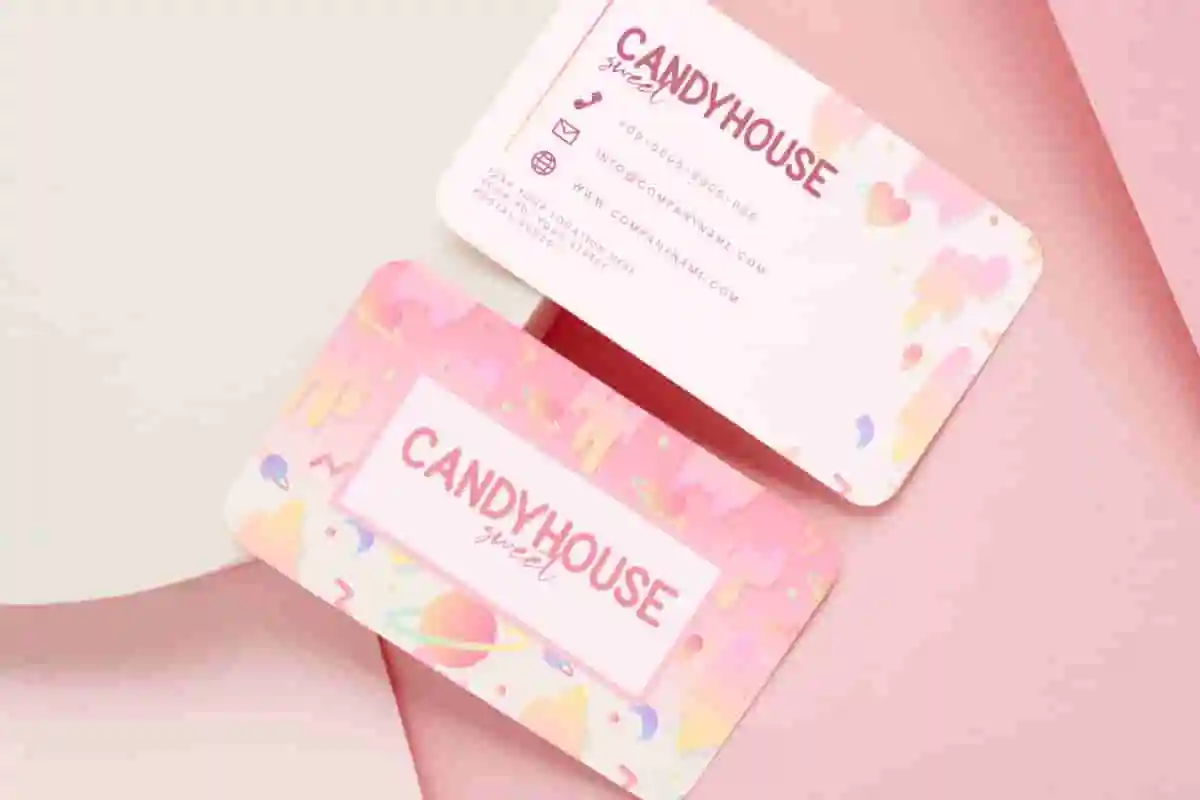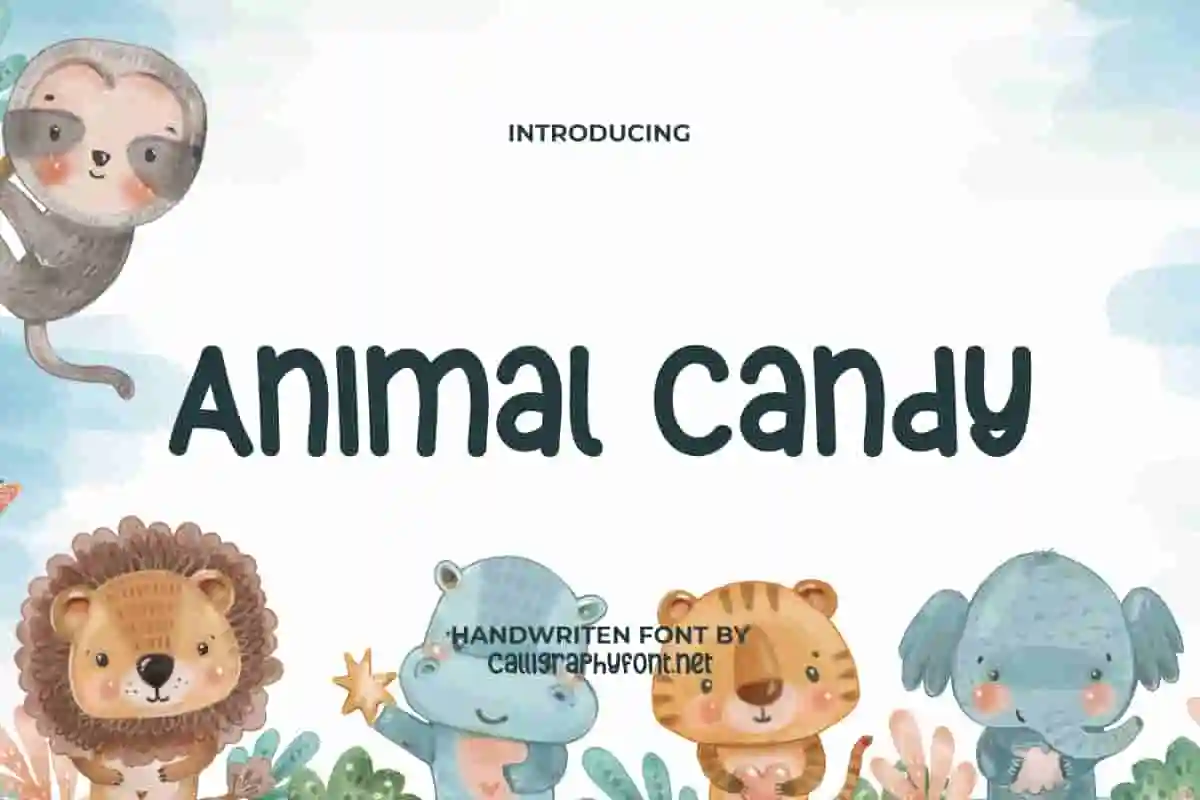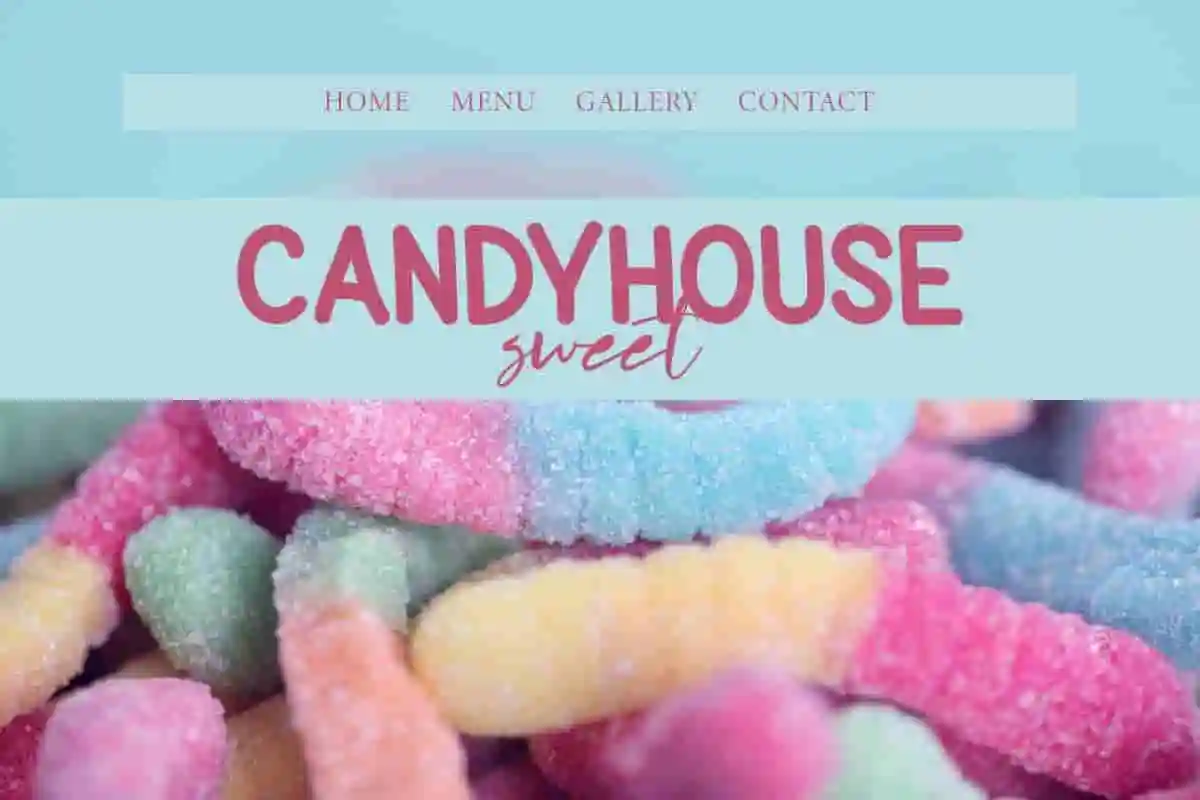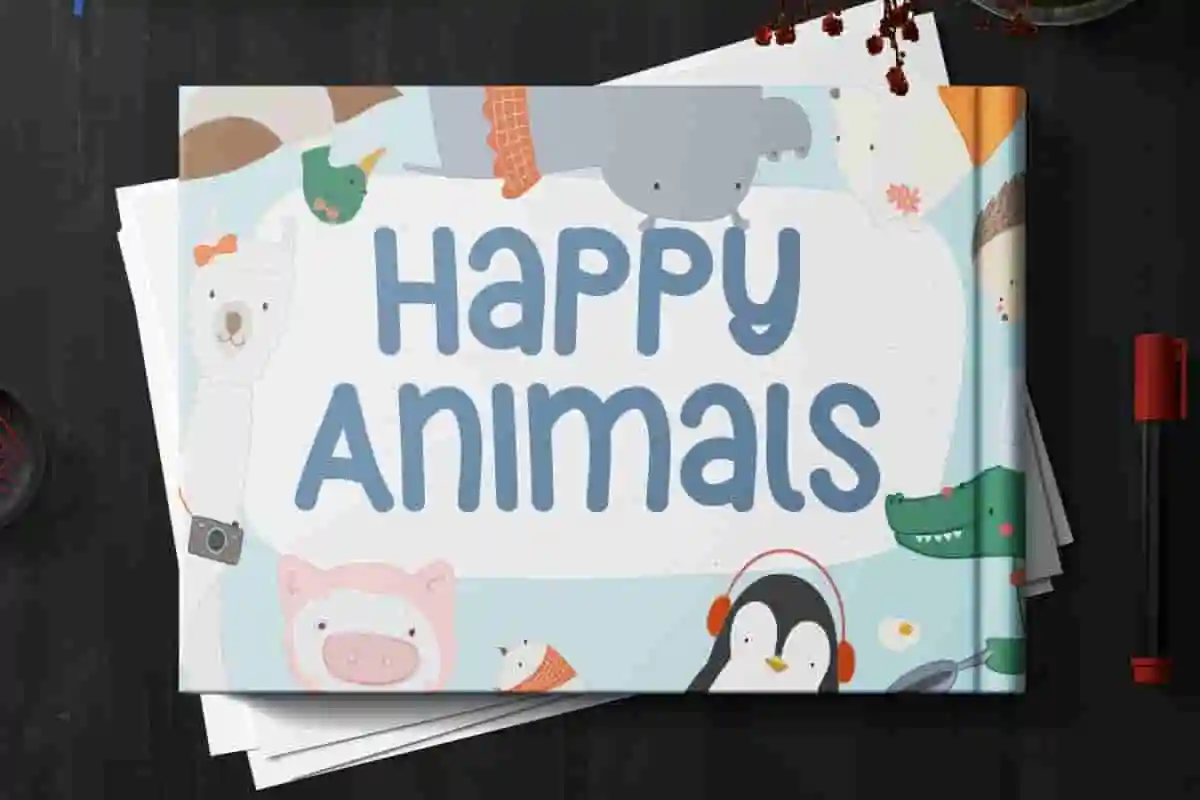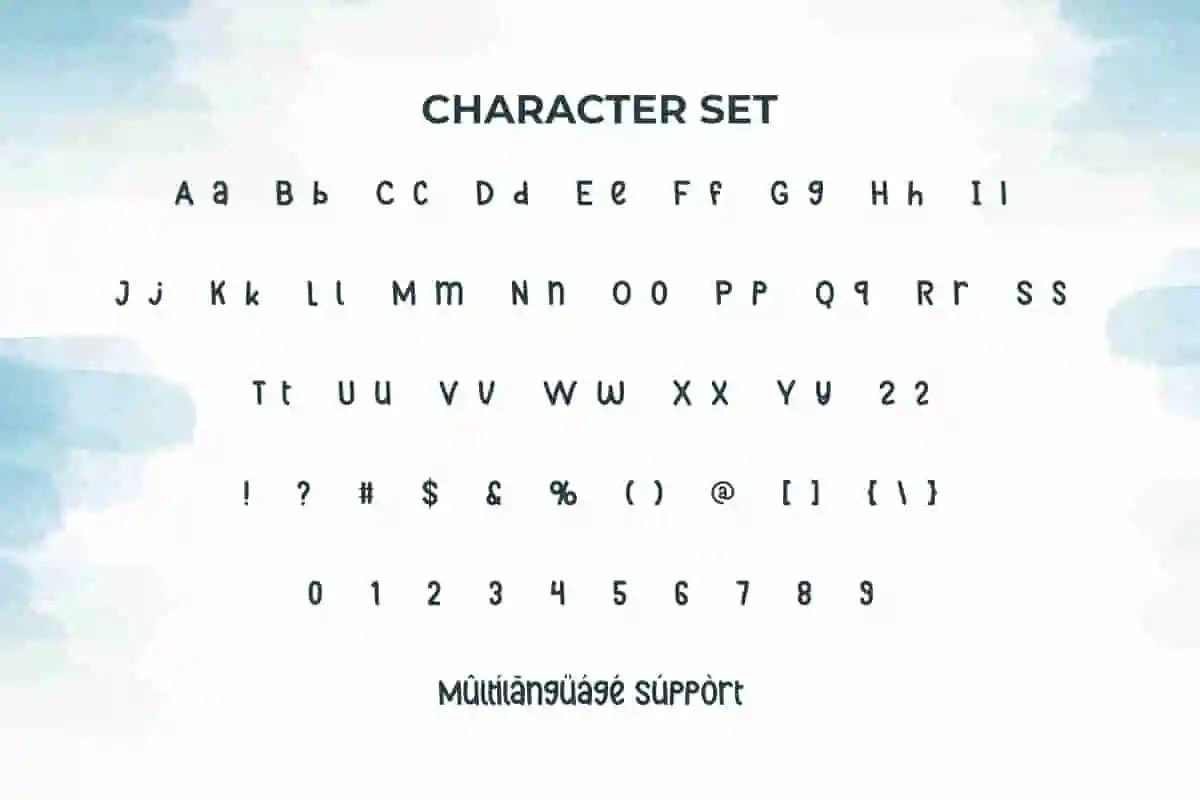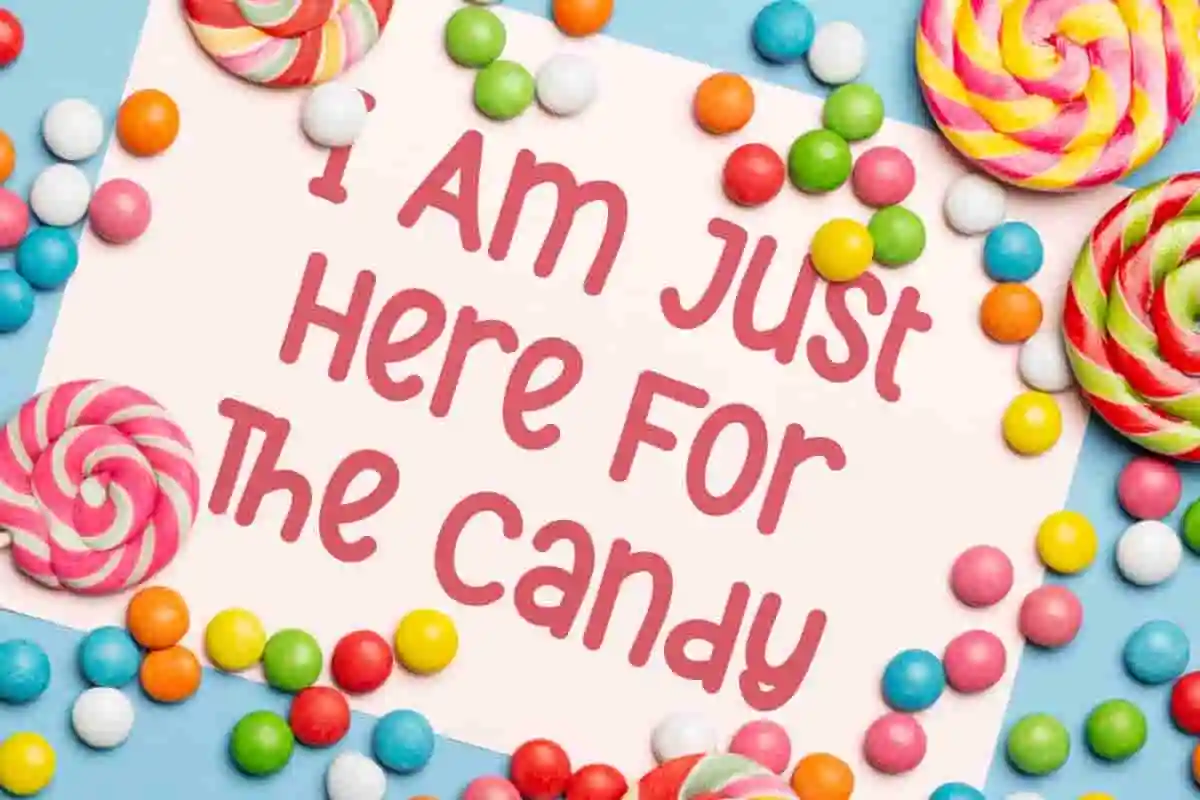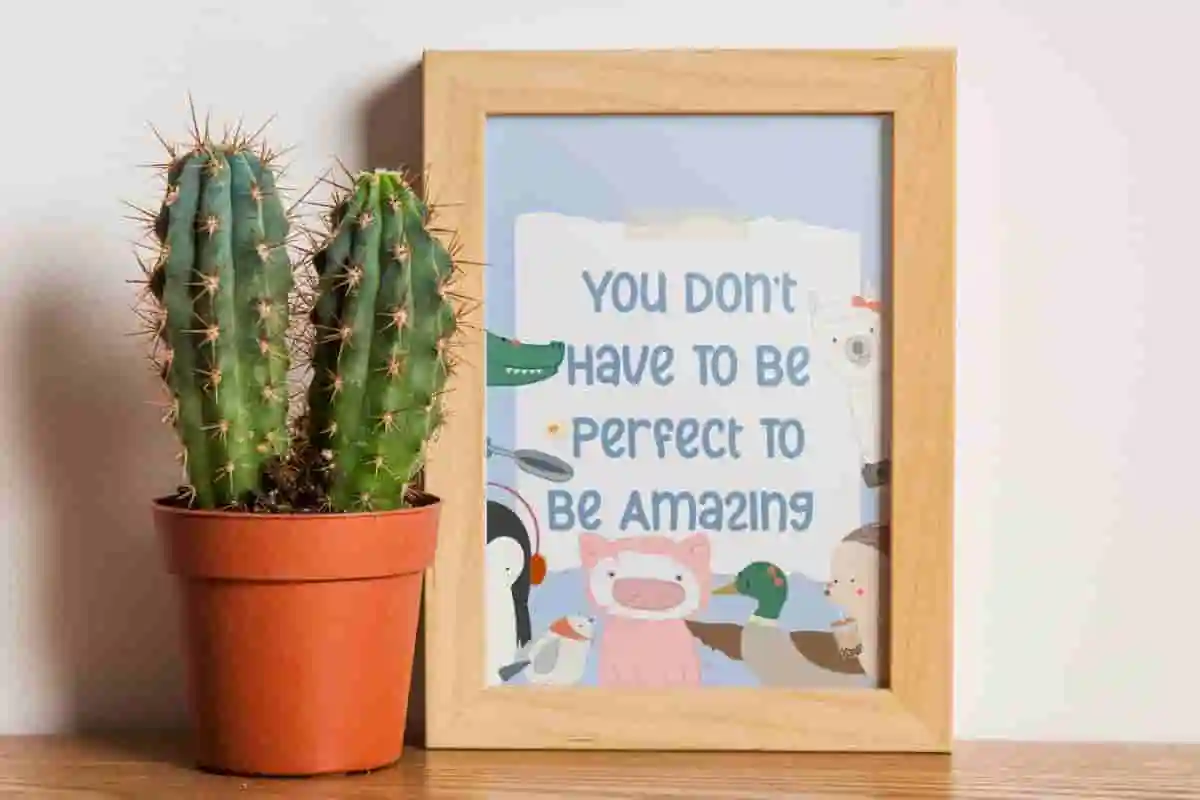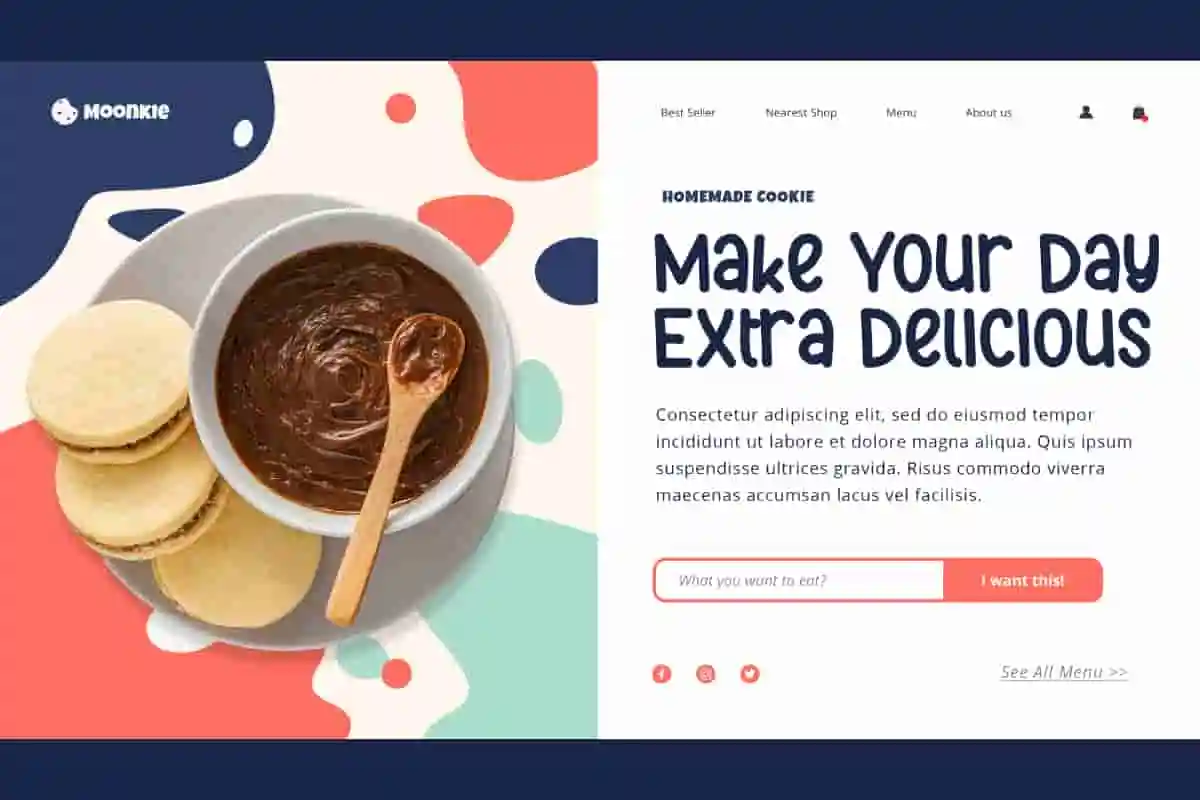
Animal Candy
Animal Candy Font is a fun comic display font with a playful animal theme. Amazing for anything that needs a fun and happy look! It has many uses for things related to children.
Animal Candy Font is a fun comic display font that was originally inspired by some kids favorite cartoon shows. This adorable font will be suitable for creating cards, brands, invitations, flyer, fun social media posts, greeting cards, header, headline, invitations, label, logos, menu brochure, mockup template, picture books, poster, product packaging, quotes, screen print, signs, stationery, stickers, title, watermarks, website, and whatever creative projects you have.
Bring fun, creativity, and endless charm into your projects with Animal Candy Display Font, a delightful display typeface designed to brighten up every word you type. This unique font combines playful shapes with a bold, candy-like style that instantly grabs attention and adds personality to your designs.
Perfect for both digital and print media, Animal Candy Font is ideal for children’s books, candy shops, toy packaging, party invitations, school projects, and playful branding. Its rounded curves and whimsical style make it stand out as a font that sparks joy while still keeping readability intact. Whether you’re a graphic designer, marketer, or small business owner, this font is a must-have in your creative toolkit.
With its vibrant character and versatile use, Animal Candy Font works beautifully for logos, posters, product packaging, merchandise, and even social media content. It brings out the fun, energetic vibe that appeals to both kids and adults. Pair it with bright colors and creative illustrations, and your design will feel alive, joyful, and truly unforgettable.
Not only is it visually appealing, but Animal Candy Display Font is also designed with smooth curves and balanced spacing to ensure a professional finish for every project. Easy to install and compatible with all major design software, you can start using it right away for your next big idea.
Animal Candy Display Font is a sweet handwritten font and perfect for all your unique creations! This font will make your business look great and have fun! For example, such as brand of candy, cake shop, cooking classes, event organizer,  fashion, film, graphic design, handicrafts, homeware, kindergarten, movie, photography, printing, publishing, restaurant, school, storybook writer, summer camp, toy store, and much more.